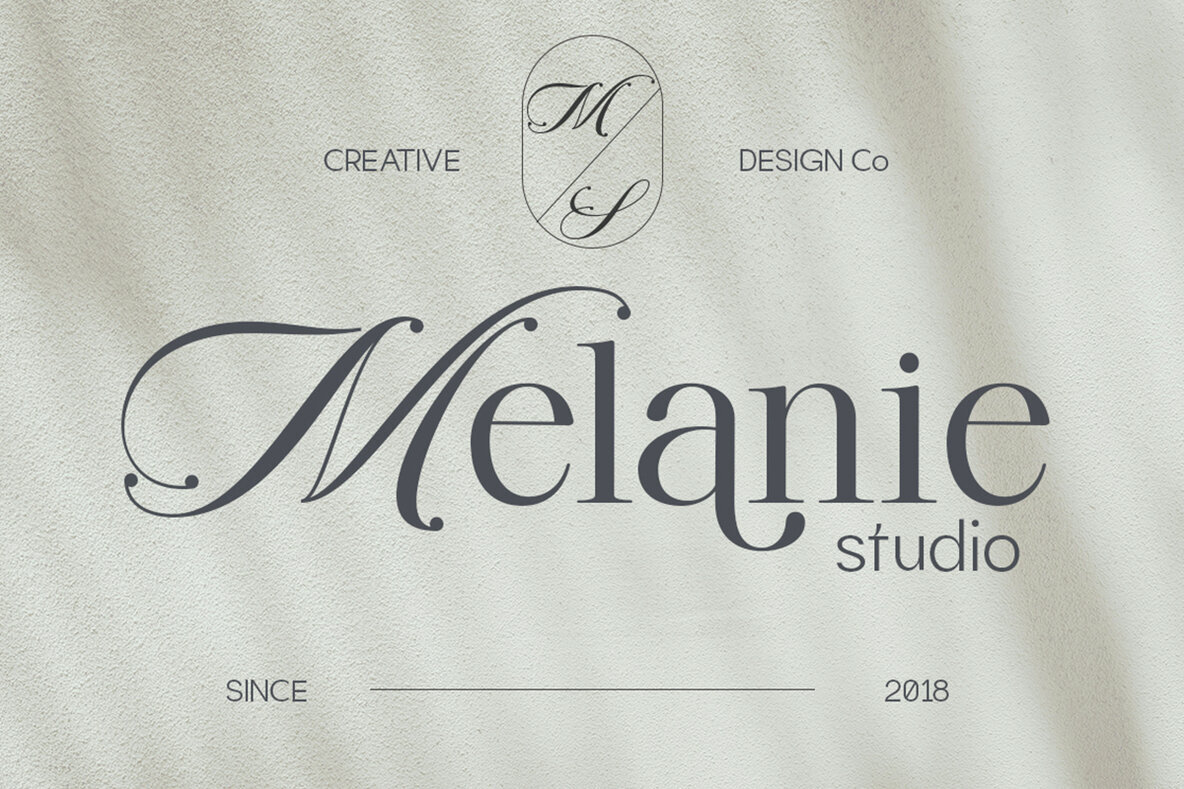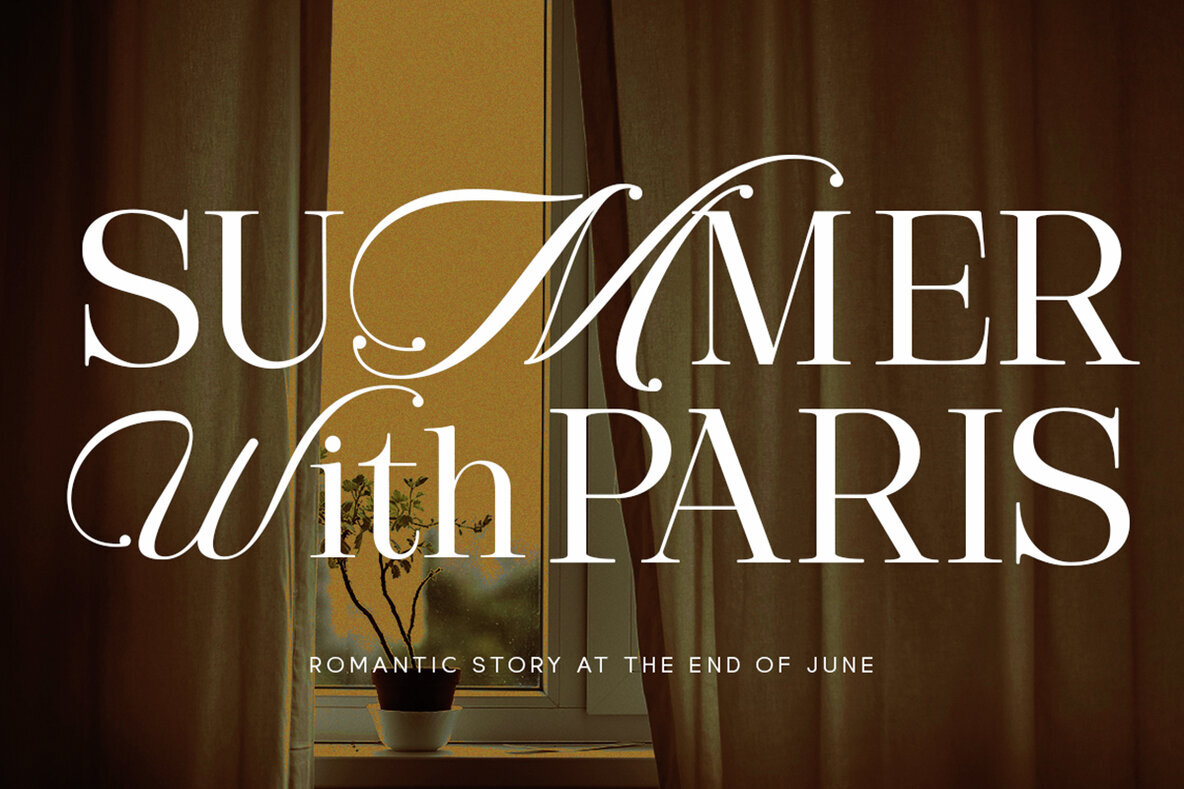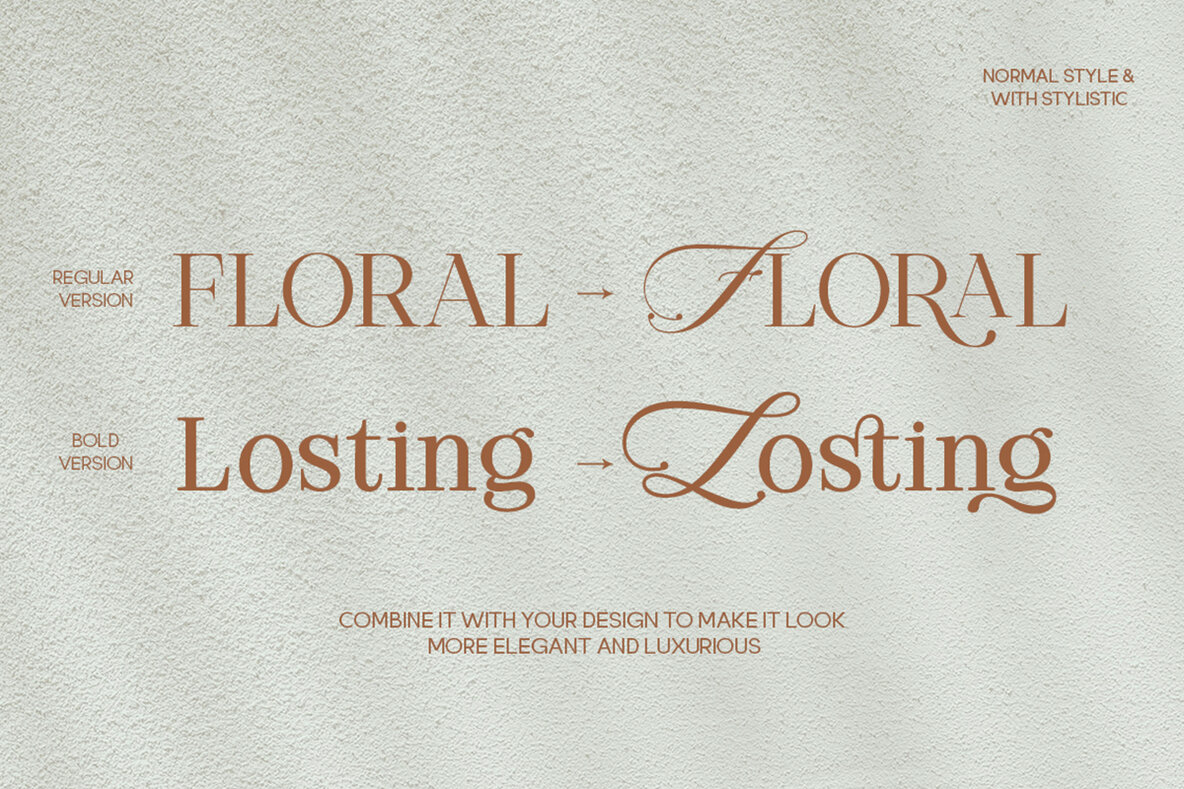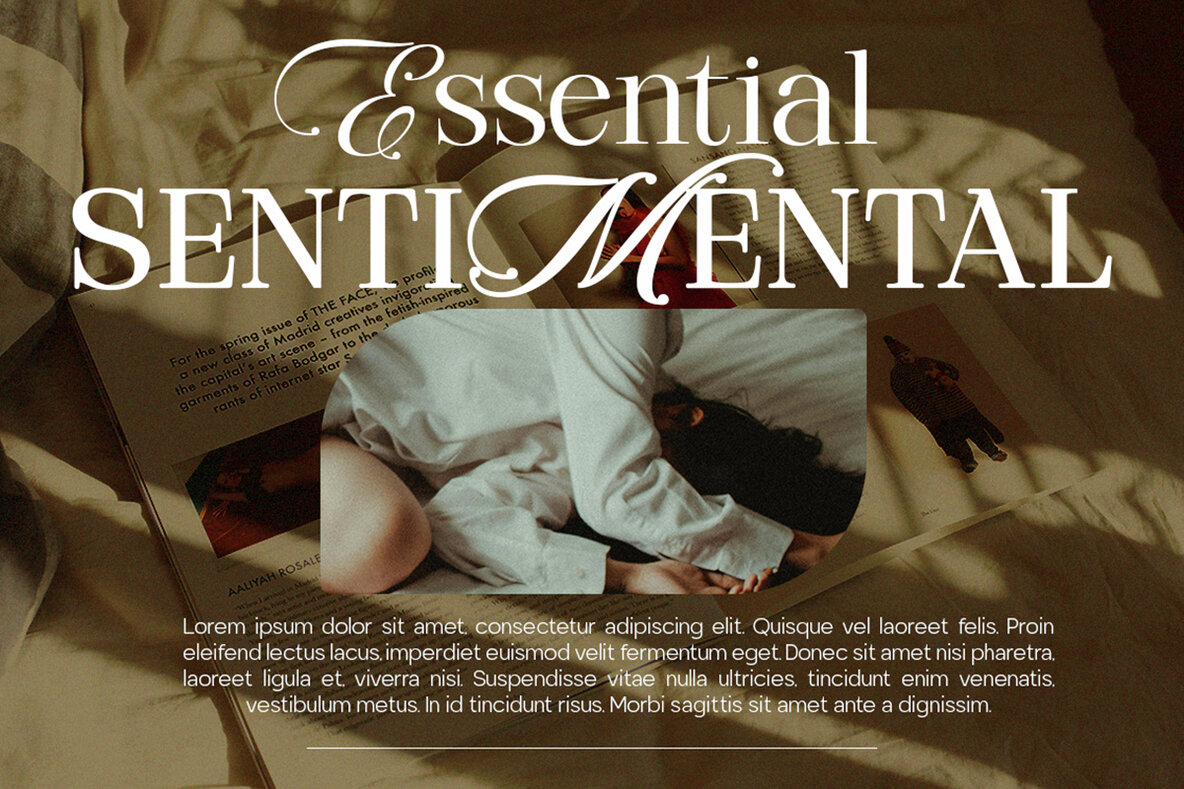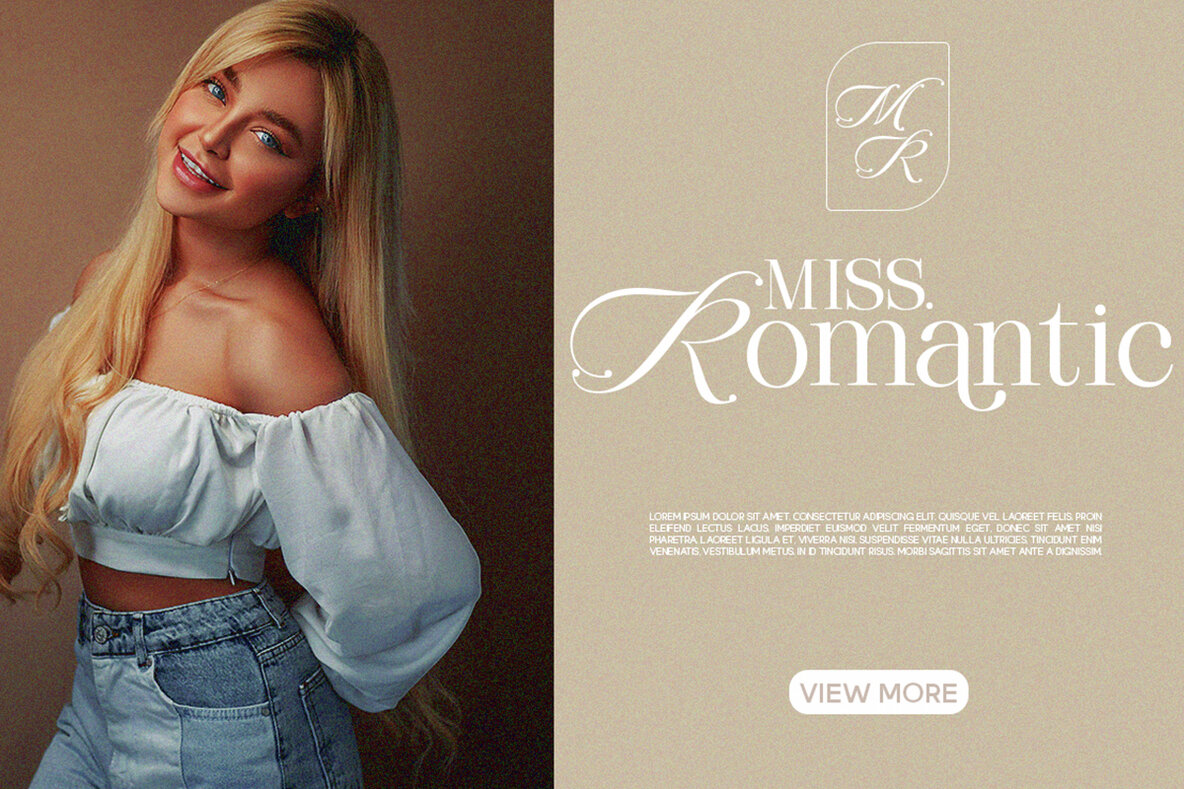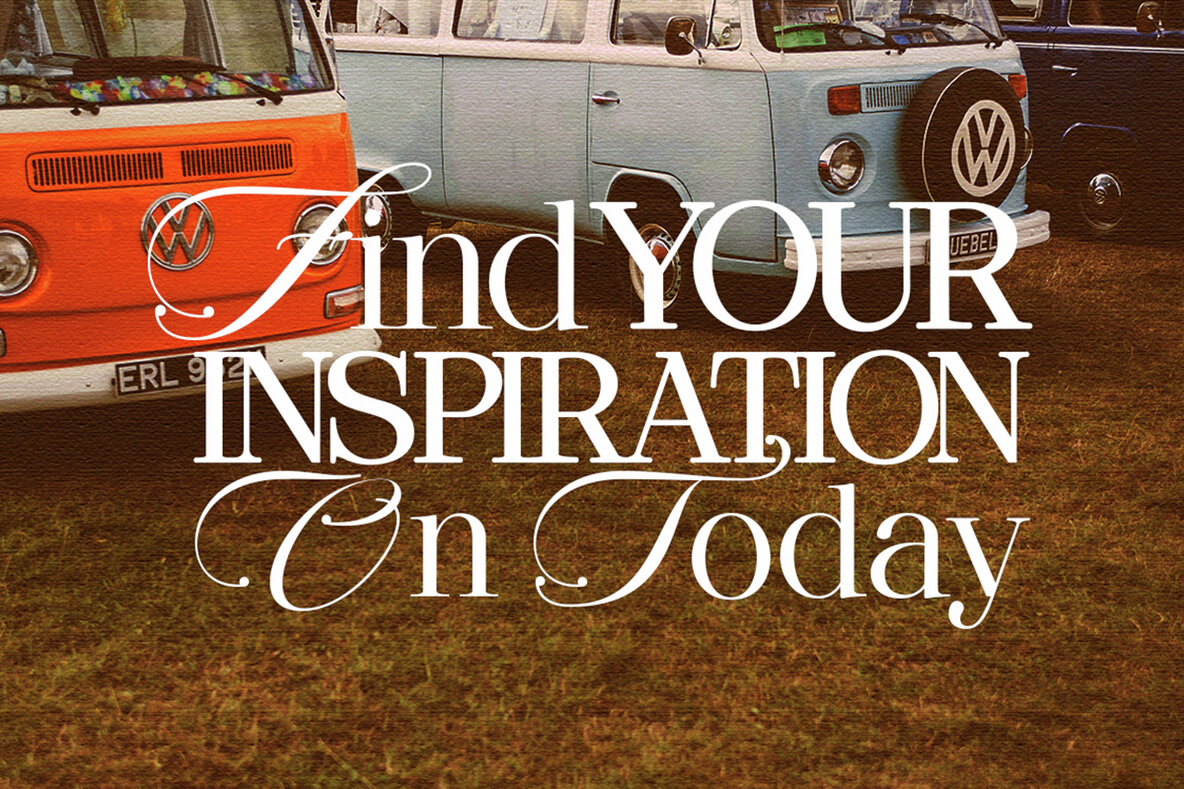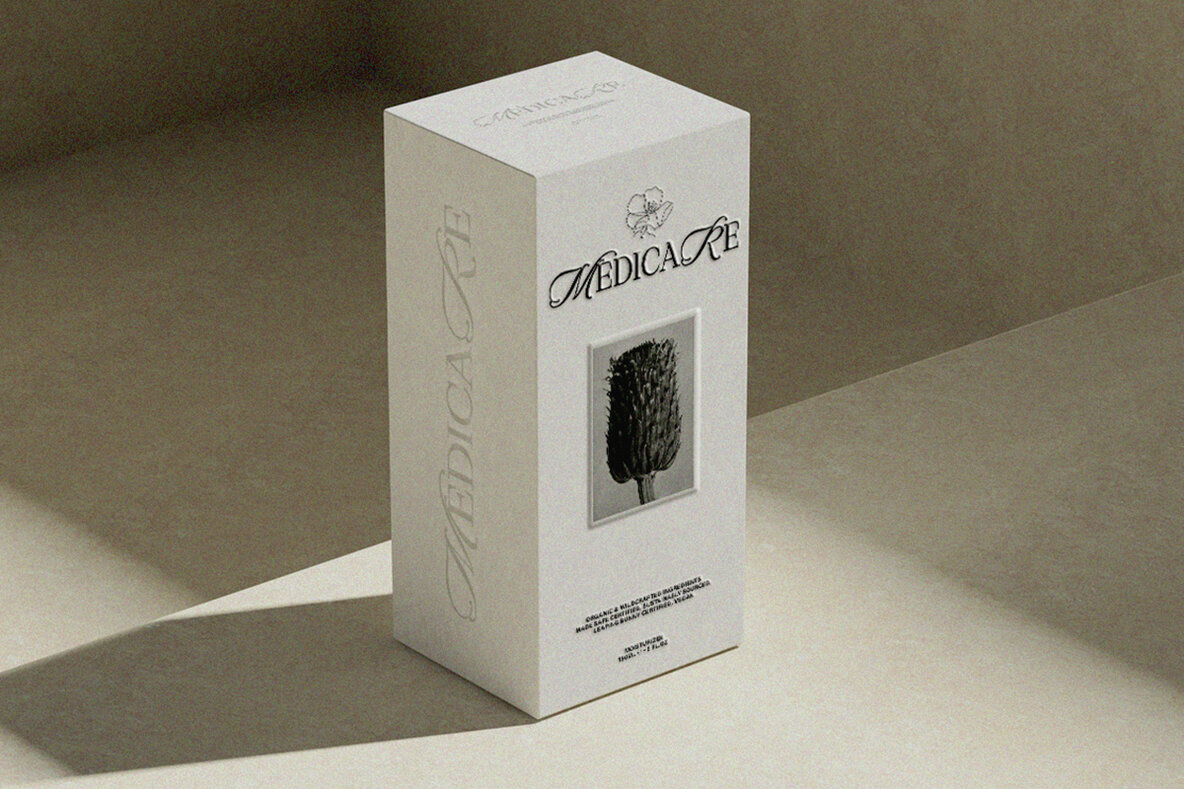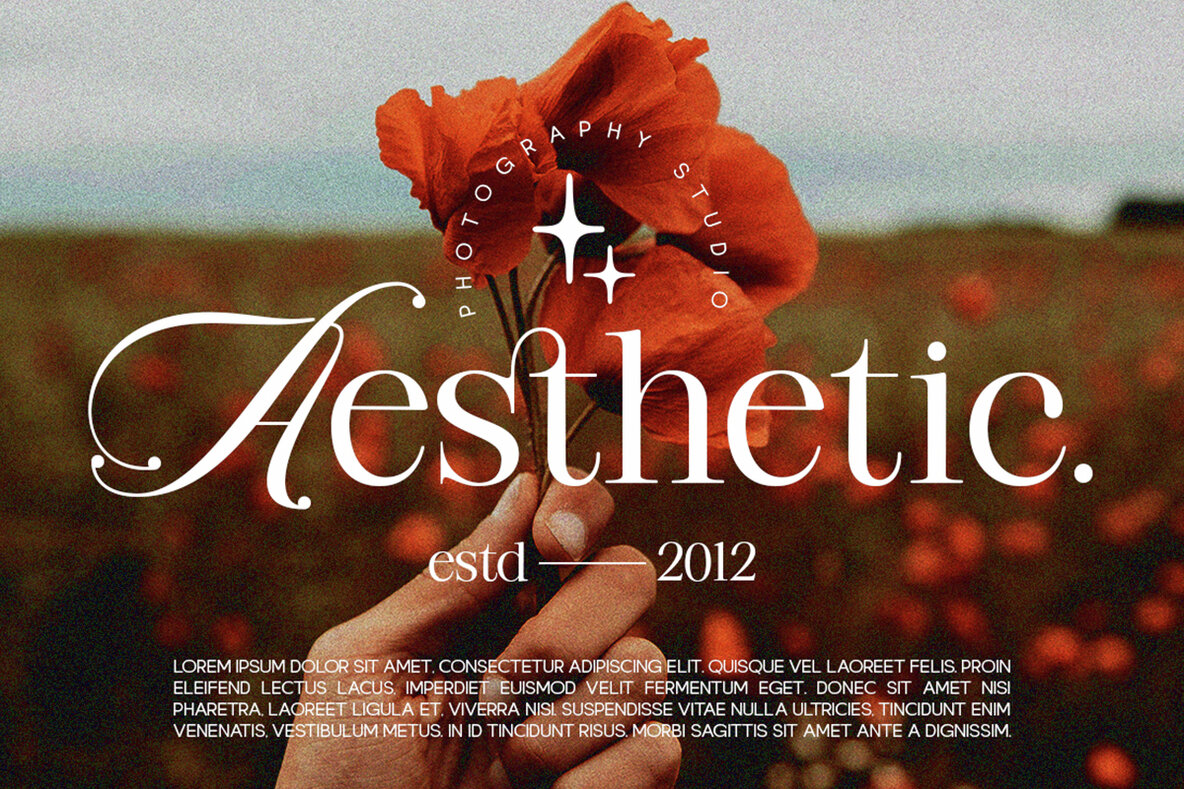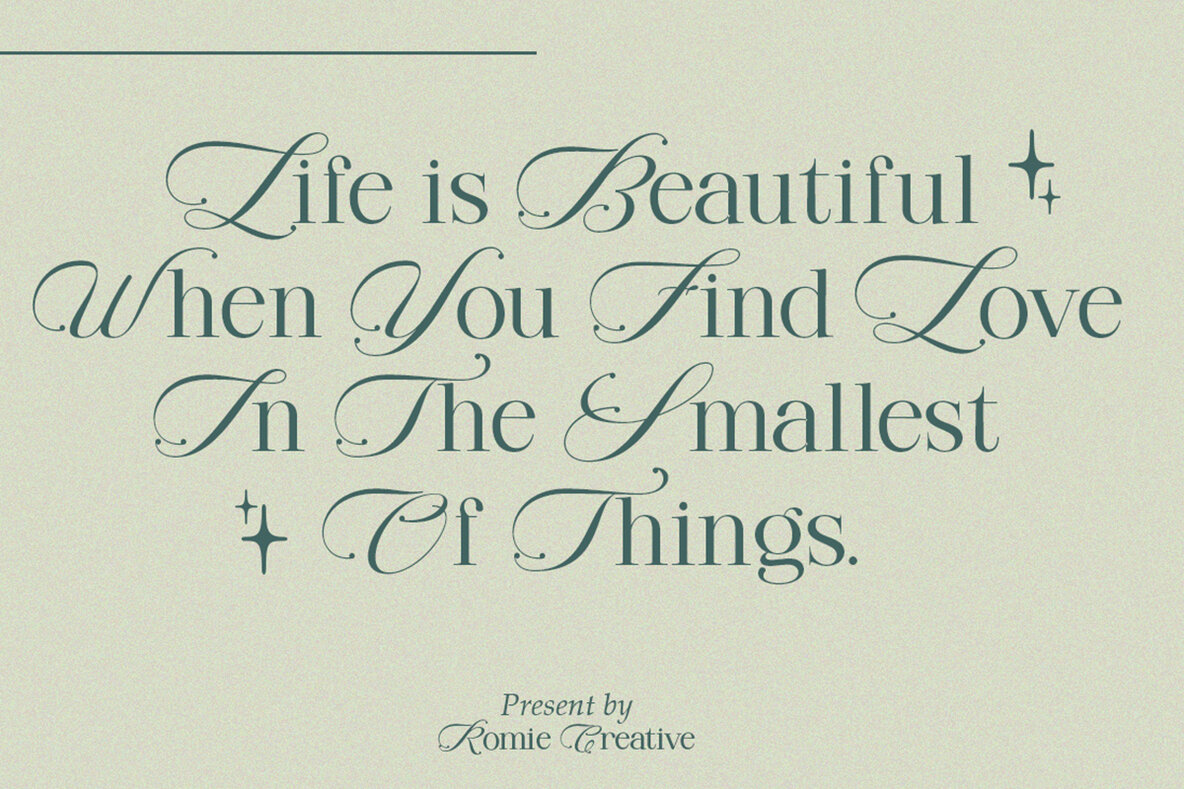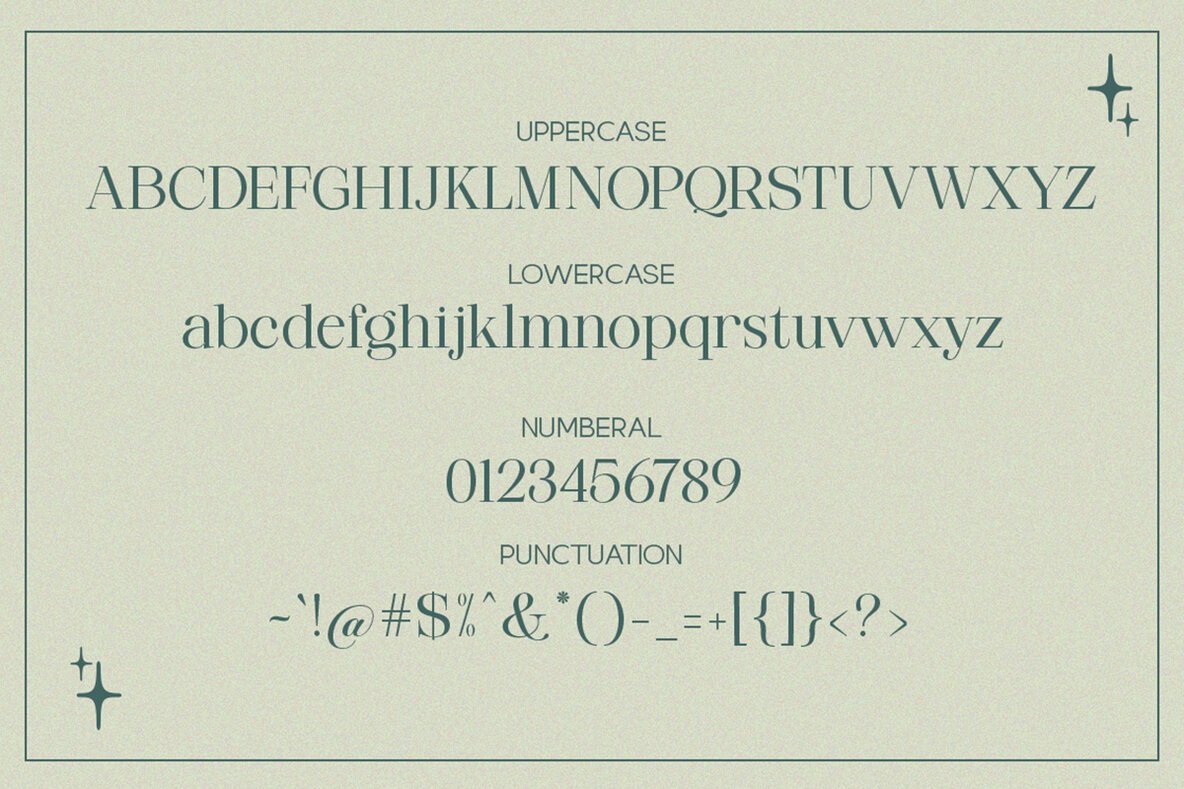
Marleys Font
Marleys is a beautiful and inspiring hybrid font that combines classic calligraphy and modern serif. With its flowing curves and intricate details, Marleys creates a sense of grace and beauty that is both timeless and modern. The font features a wide range of characters, Marleys is perfectly suited for branding, logotype, social media posts, advertising, product packaging, label, photography, watermark, t-shirt, website design, invitation, stationery and any projects seeking a touch of romantic elegance with a modern flair. FEATURES Stylistic Alternates Ligatures Uppercase and Lowercase letters Numbering and Punctuations Works on PC or Mac Simple Installation PUA Encoded Characters - Easily accessible without additional design software. Support Adobe Illustrator, Adobe Photoshop, Adobe InDesign, also works on Microsoft Word Multilingual Support including Afrikaans, Albanian, Basque, Catalan, Danish, Dutch, English, Estonian, Faroese, Filipino, Finnish, French, Galician, German, Icelandic, Indonesian, Irish, Italian, Malay, Norwegian Bokmål, Portuguese, Spanish, Swahili, Swedish, Zulu